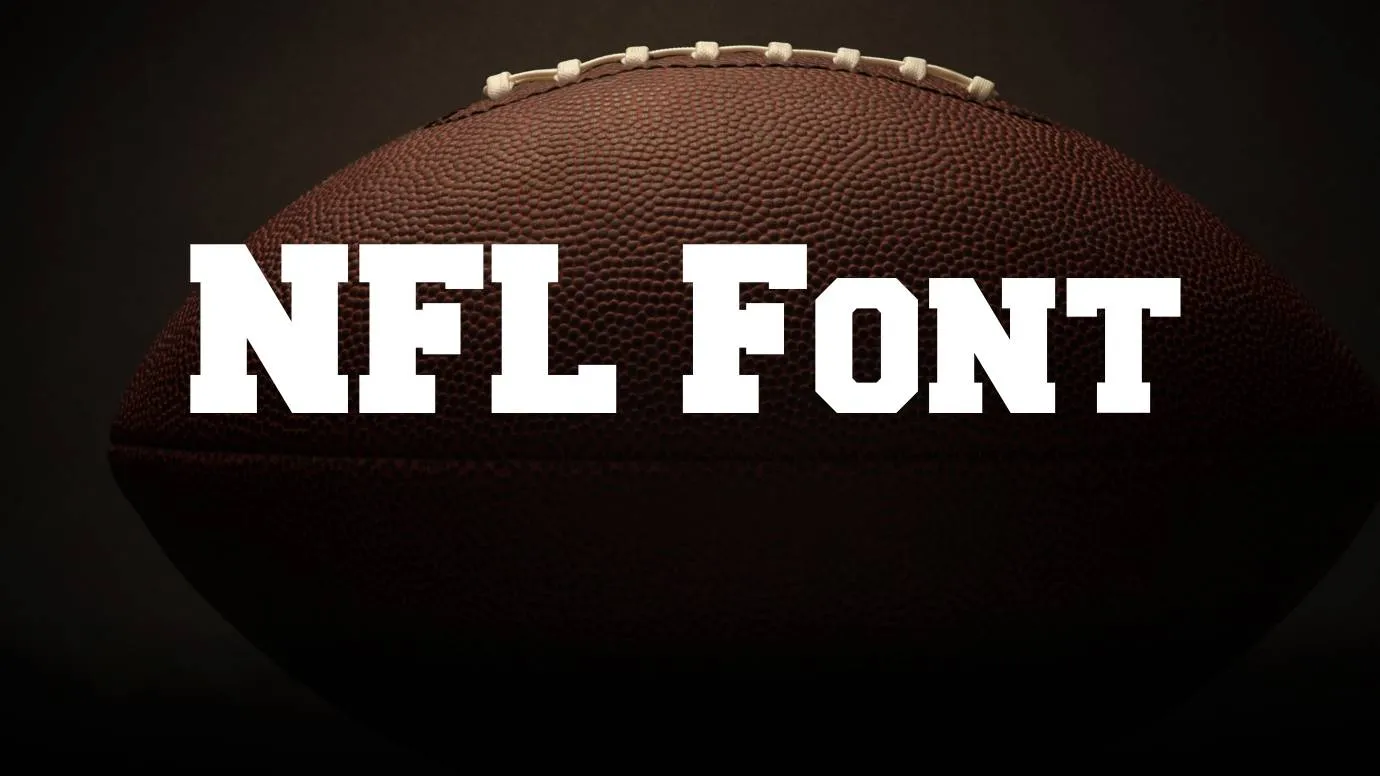
NFL Font is a cozy and modern typeface that is famous by the name NFL Font. This staggering font was designed by an elegant and well-experienced designer named William Boyd. This font is developed after the very hard work of the designer. It belongs to the Display typeface.
The logo of the football league designed by this glorious font is more attractive and eye-catching. Because of this reason different companies use this classy font for their logo designs and other designs. Freshman Font is the most similar font to this awesome font that increases its popularity.
NFL Font
DesignerWilliam Boyd